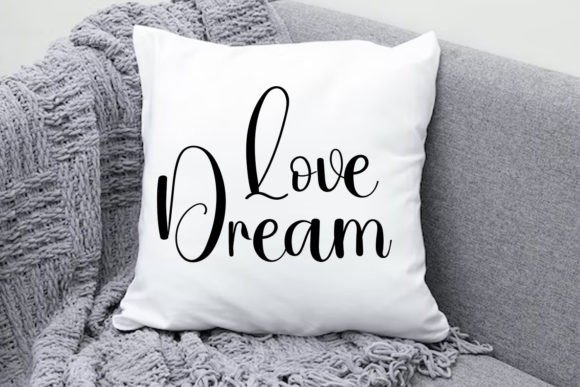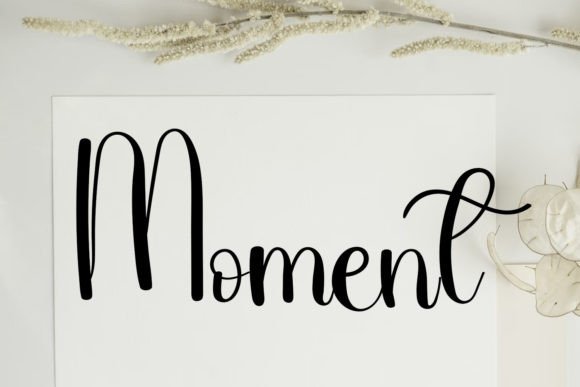
Beach Font
Beach is a fresh and beautiful font, good for your design purposes such as youtube banners, cover logo mockups, wedding invitations, flyers, and crafts. By using this font your business will progress and develop.